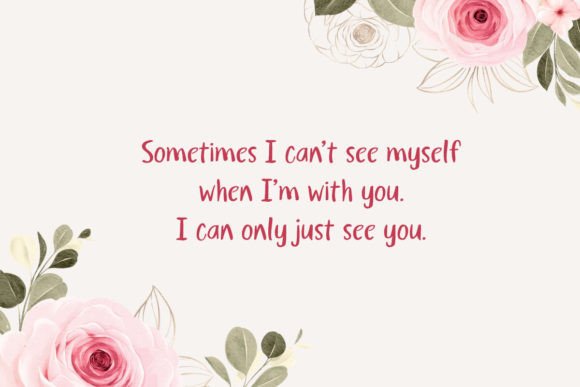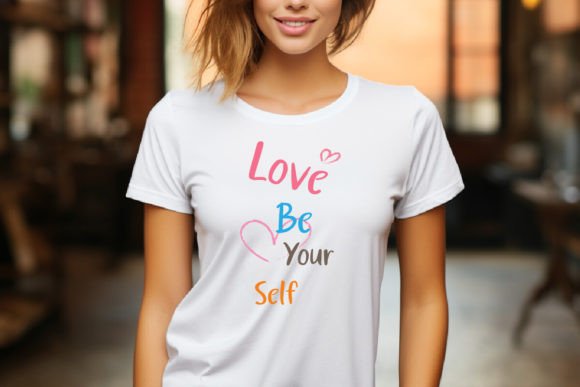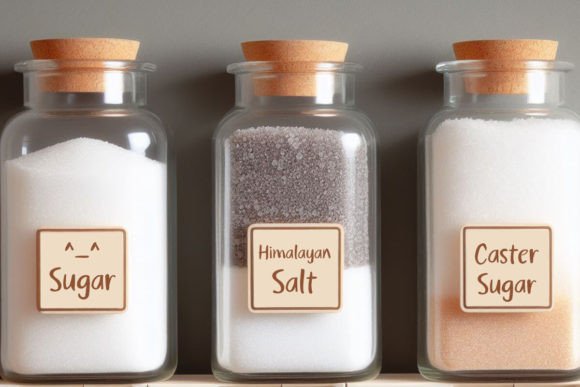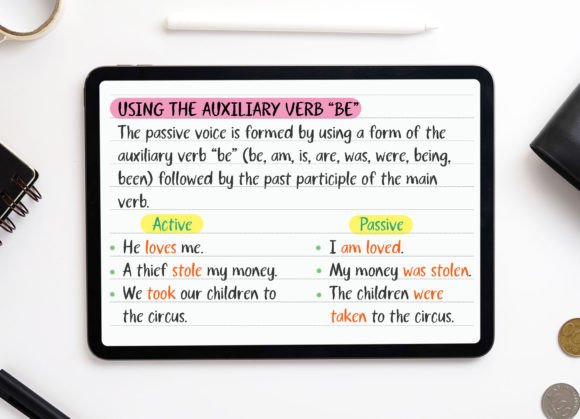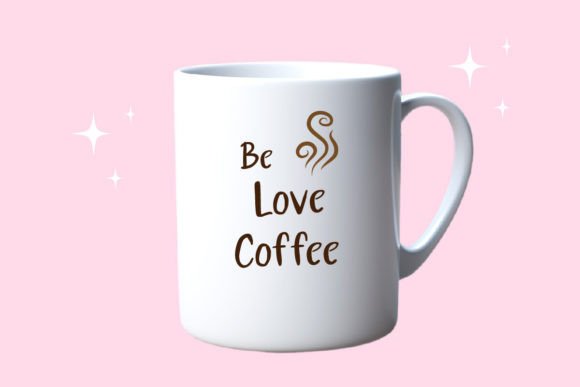
Have you ever been working on a project, pouring your heart and soul into it, only to hit a creative roadblock? You’ve got the message, the vision, but something’s missing – a spark that brings it all together. That’s when I fell in love with Always Miss You Fu Font.
This charming sans serif font is more than just a pretty face; it’s a key to unlocking a world of creativity and possibility. Perfect for fun projects, diary planners, wedding invitations, and everything in between, Always Miss You Fu Font is the ultimate companion for designers looking to add a playful touch to their work.
Always Miss You Fu Font Key Features
- Font Family: Always Miss You Fu Font is a unique font designed to convey a sense of nostalgia and longing.
- Unique Characteristics: The font’s unique design and character set make it an ideal choice for projects that require a nostalgic or retro feel, such as music, art, or design that evokes a sense of longing or remembrance.
Always Miss You Fu Font Review
At first glance, the Always Miss You Fu Font is a visually striking font with a unique blend of Asian and Western elements. ✨ The bold strokes and intricate details make it perfect for creating a sense of nostalgia and longing. ✨ I particularly like how the font’s curves and lines evoke a sense of emotional depth.
However, as I delved deeper into the font, I encountered some limitations. ⚠️ The font’s legibility can be a bit of a challenge, especially at smaller sizes. ⚠️ The bold lines and intricate details can sometimes make it difficult to read, particularly for those who are not familiar with the font.
Here are some specific issues I encountered:
- The font’s bold weight can be overwhelming, making it difficult to use for body text.
- The font’s legibility is not ideal for digital displays, such as smartphones and tablets.
Overall, the Always Miss You Fu Font is a unique and striking font that can add a touch of elegance and sophistication to your designs. However, it may not be the best choice for body text or digital displays. With some careful selection and use, this font can be a valuable addition to your design toolkit.
For the best results, use the Always Miss You Fu Font in conjunction with other bold and elegant fonts to create a striking visual effect. This font is ideal for use in wedding invitations, Valentine’s Day cards, and other romantic designs. Experiment with different font sizes and colors to create a unique and eye-catching look.